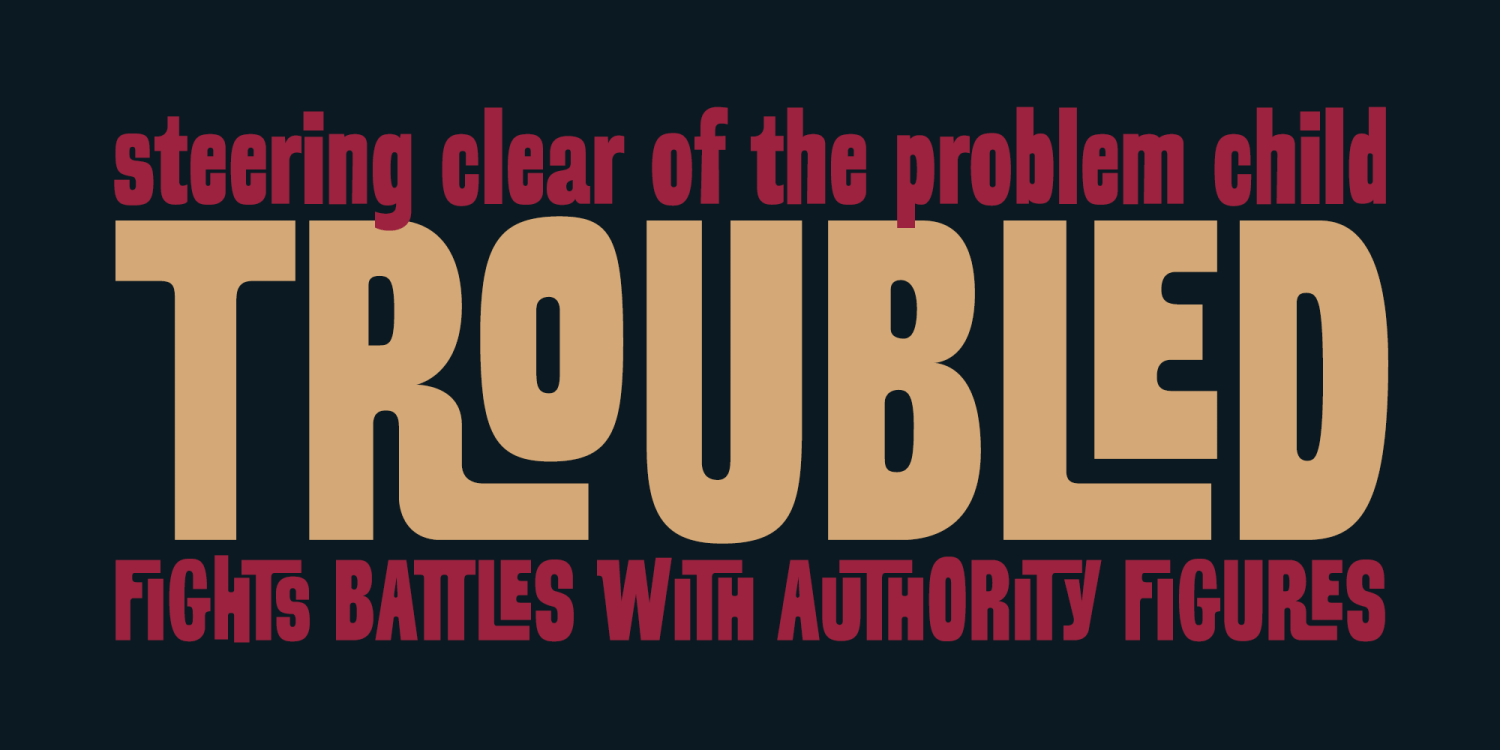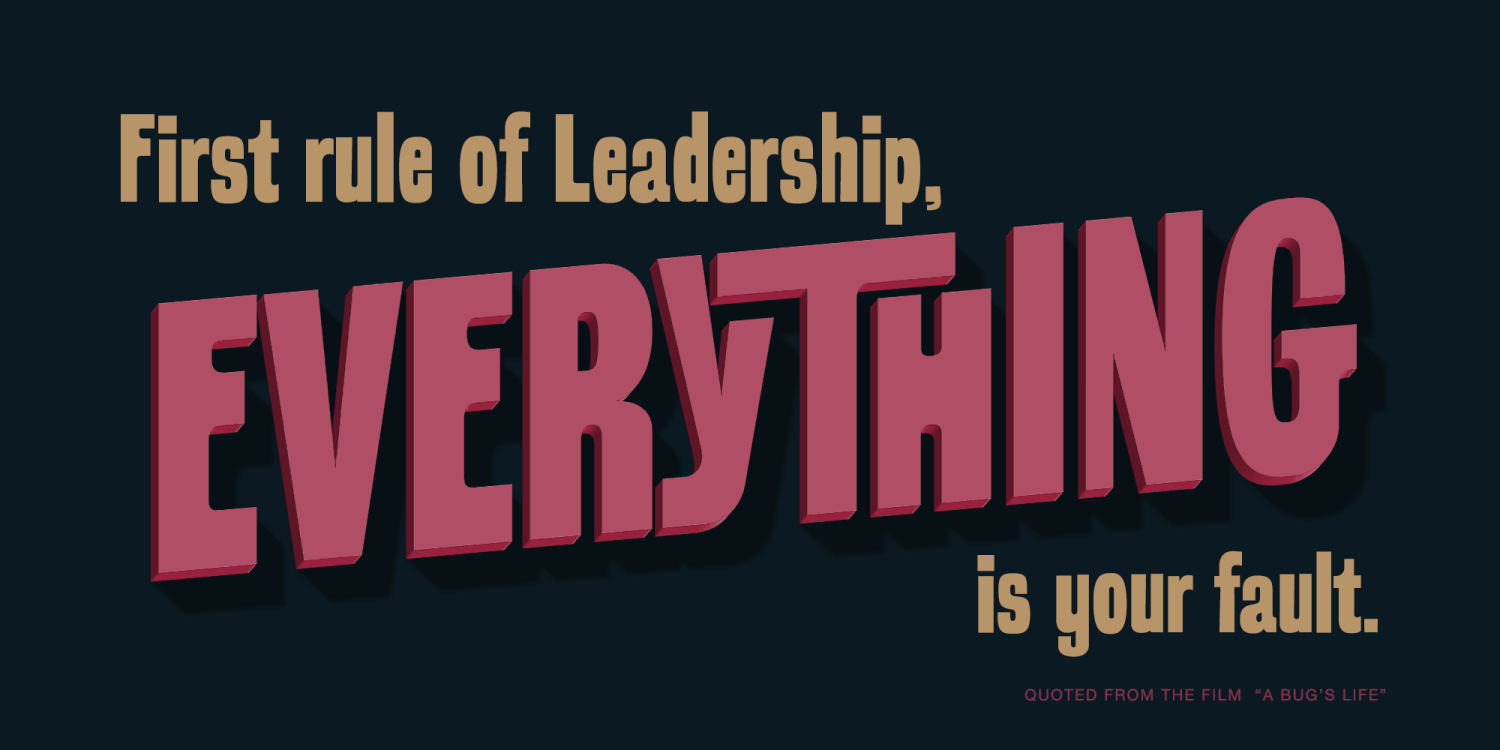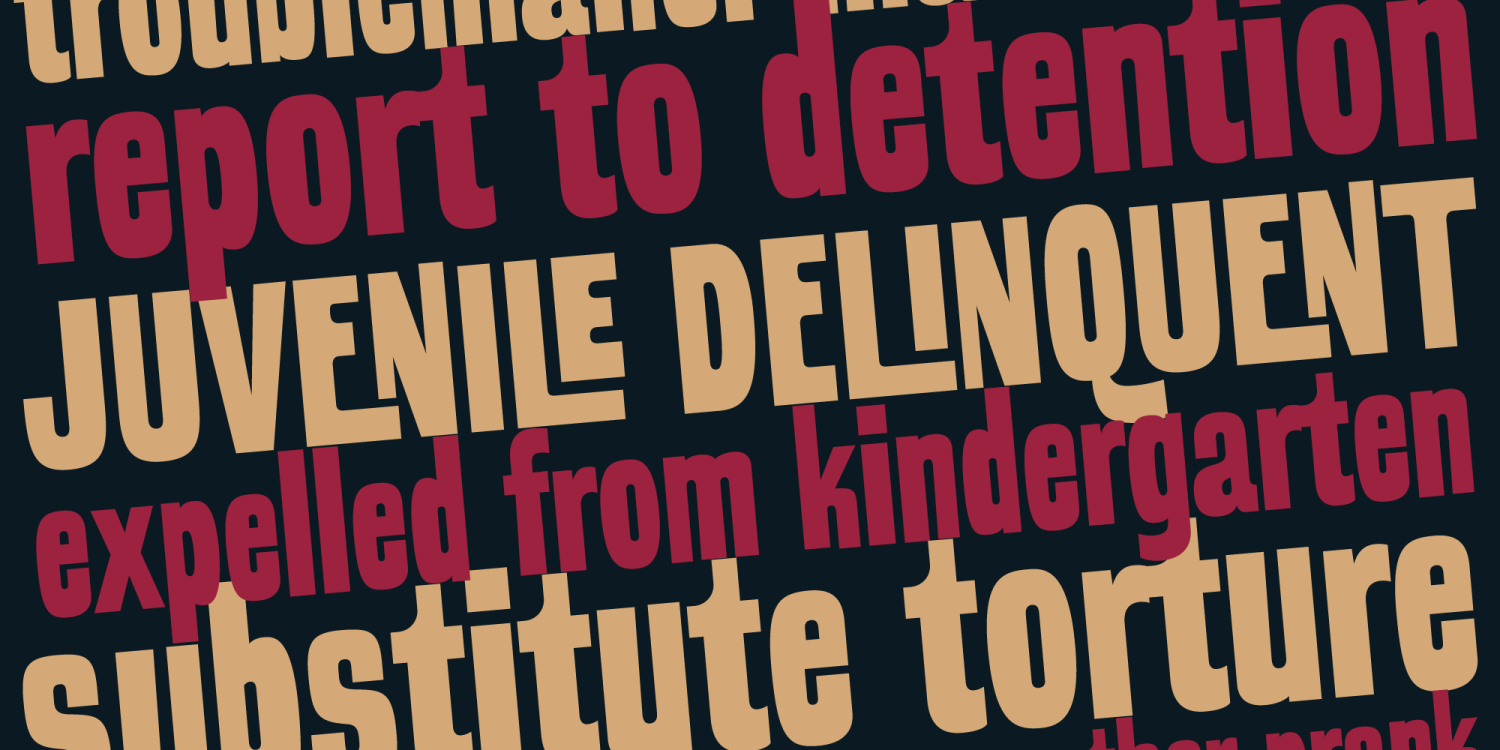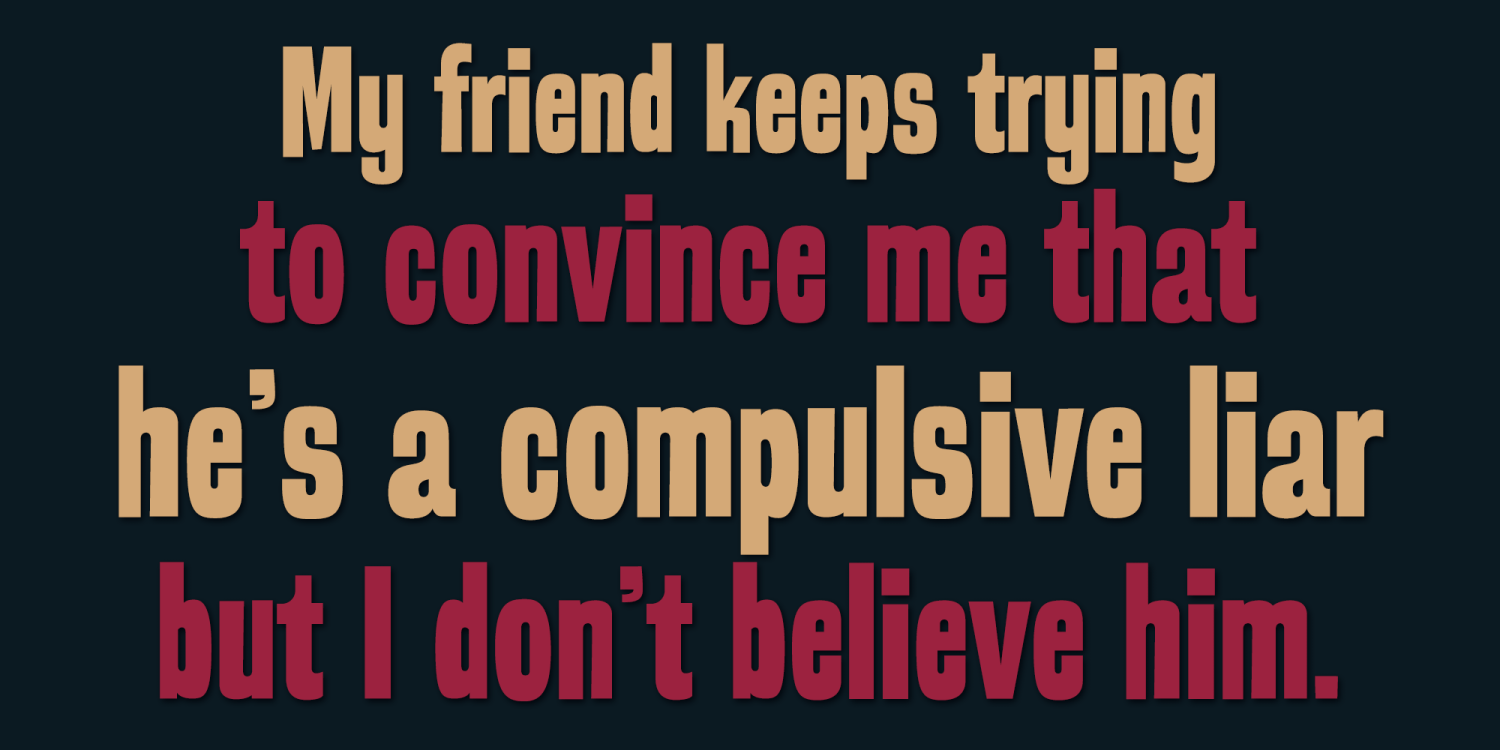
Troubled PB
Loaded with various auto-ligatures (primarily for ALL-CAPS typesettings), Troubled has all of the rebellious custom lettered attitude of a vintage pulp paperback. Troubled PB began as a digitization of a film typeface known as Toronado by LetterGraphics, perfect for typesetting early children books, candy packaging, toy packaging, birthday invitations, or any other playful design need. It's lowercase typesetting is straightforward and casual, with a light animated feel, while the all-caps typesetting goes wild with auto-ligatures galore to create wonderful and interesting interwoven letterform combinations.
This typestyle has such an offbeat appeal to it that it just draws your attention. Great for headlines (especially in all caps settings), but also great for small bodies of text in mixed case setting.
So whether child-friendly design pursuits, or reminiscing of vintage pulp paperbacks novels, Troubled PB has a little something for everyone.